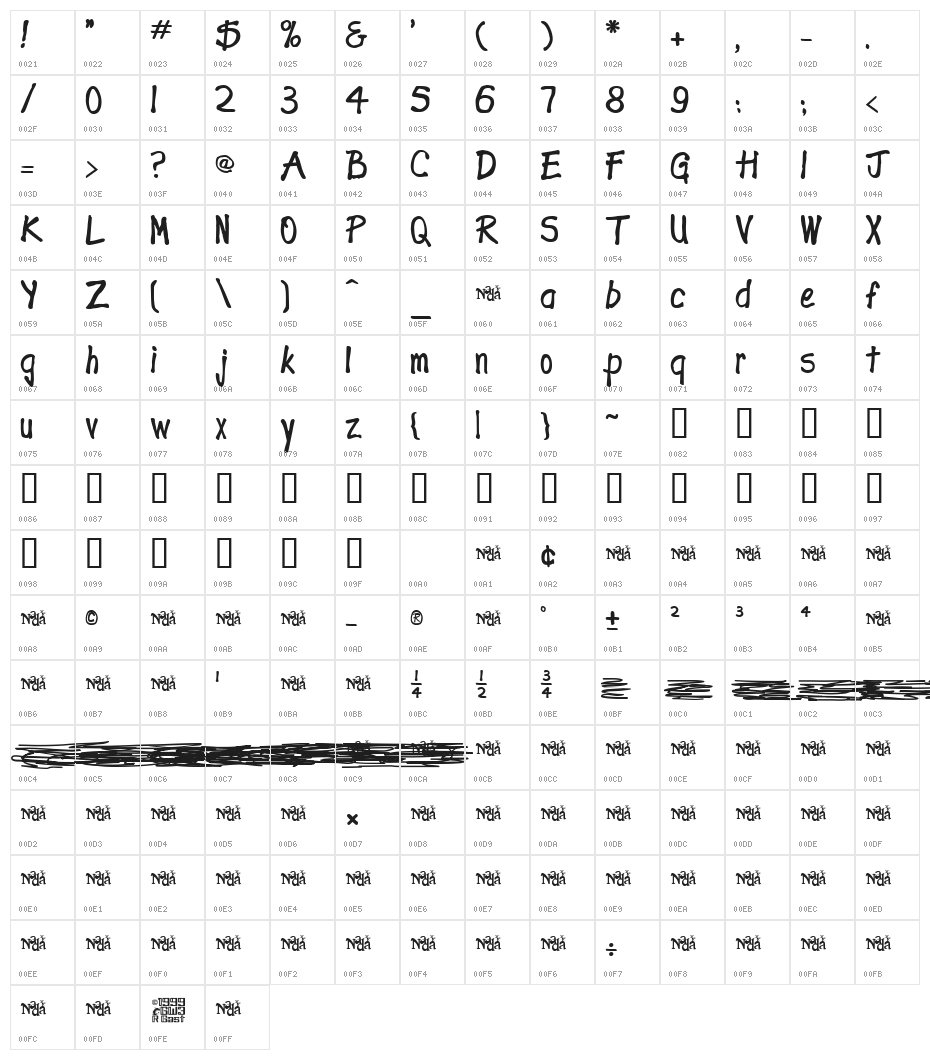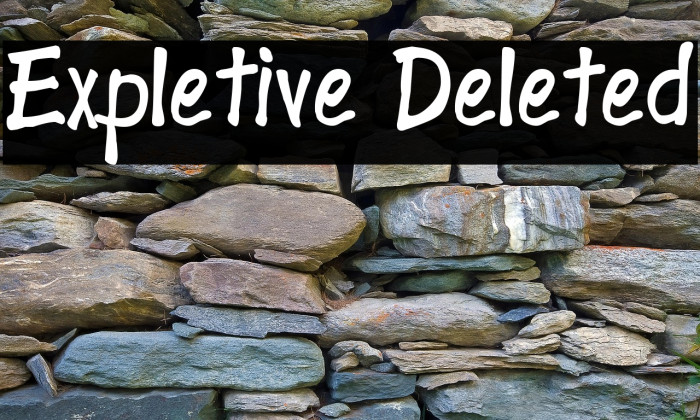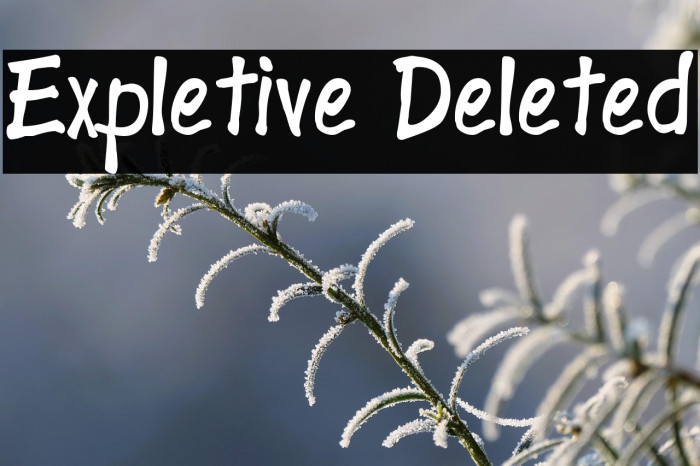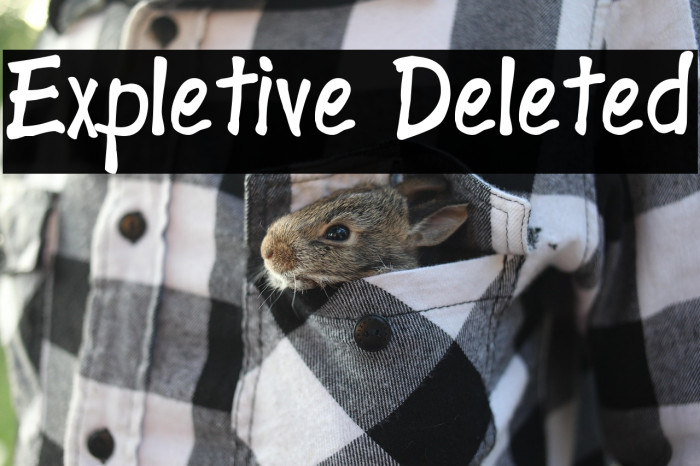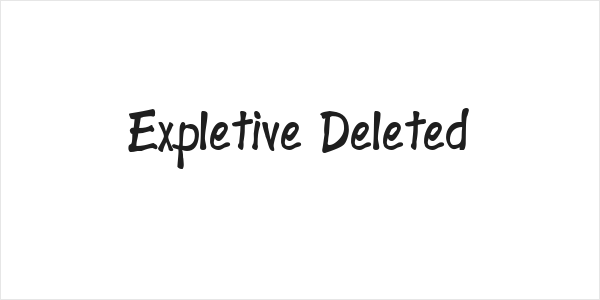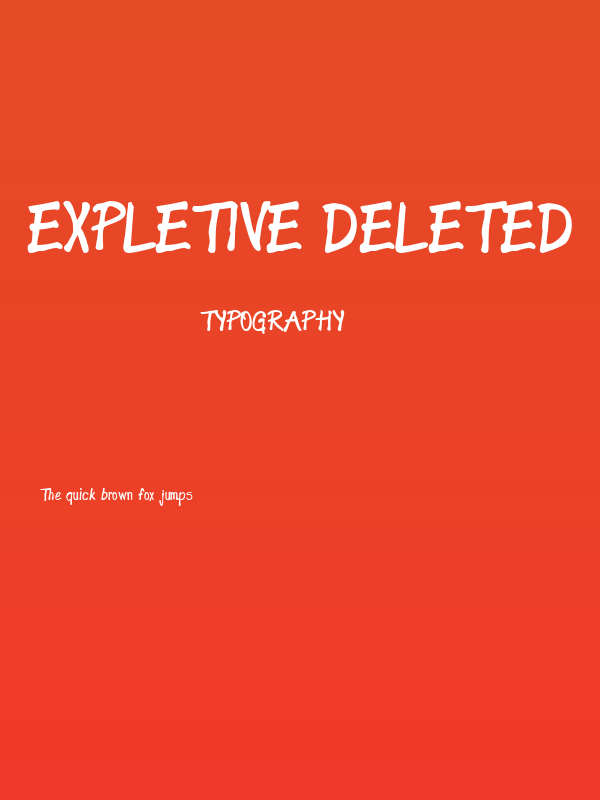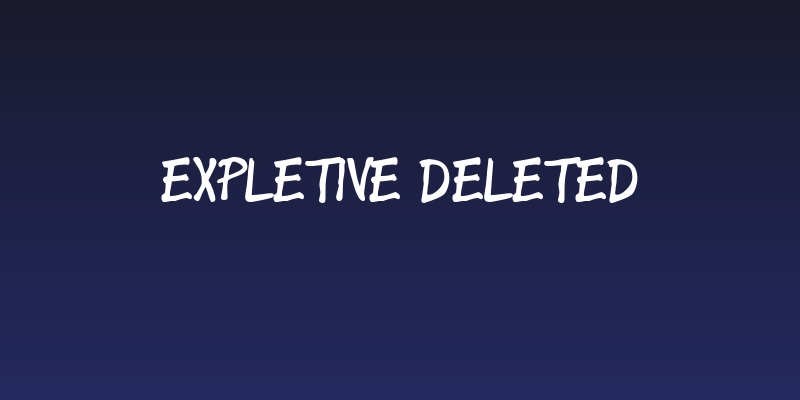
Expletive Deleted Font
Expletive Deleted Description
This font features a playful and casual handwritten style, characterized by its irregular and dynamic strokes. The letters have a slightly uneven baseline, giving it a lively and informal appearance. The uppercase and lowercase letters are well-balanced, with a consistent flow that maintains readability. The numbers and special characters are designed to match the overall whimsical aesthetic, making it suitable for creative and informal projects. The strokes vary in thickness, adding to the hand-drawn feel, while maintaining a coherent structure across all characters.